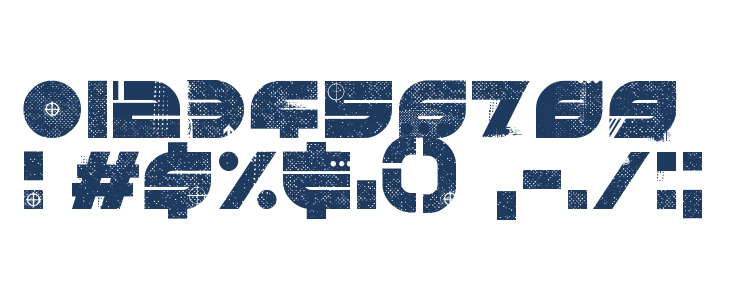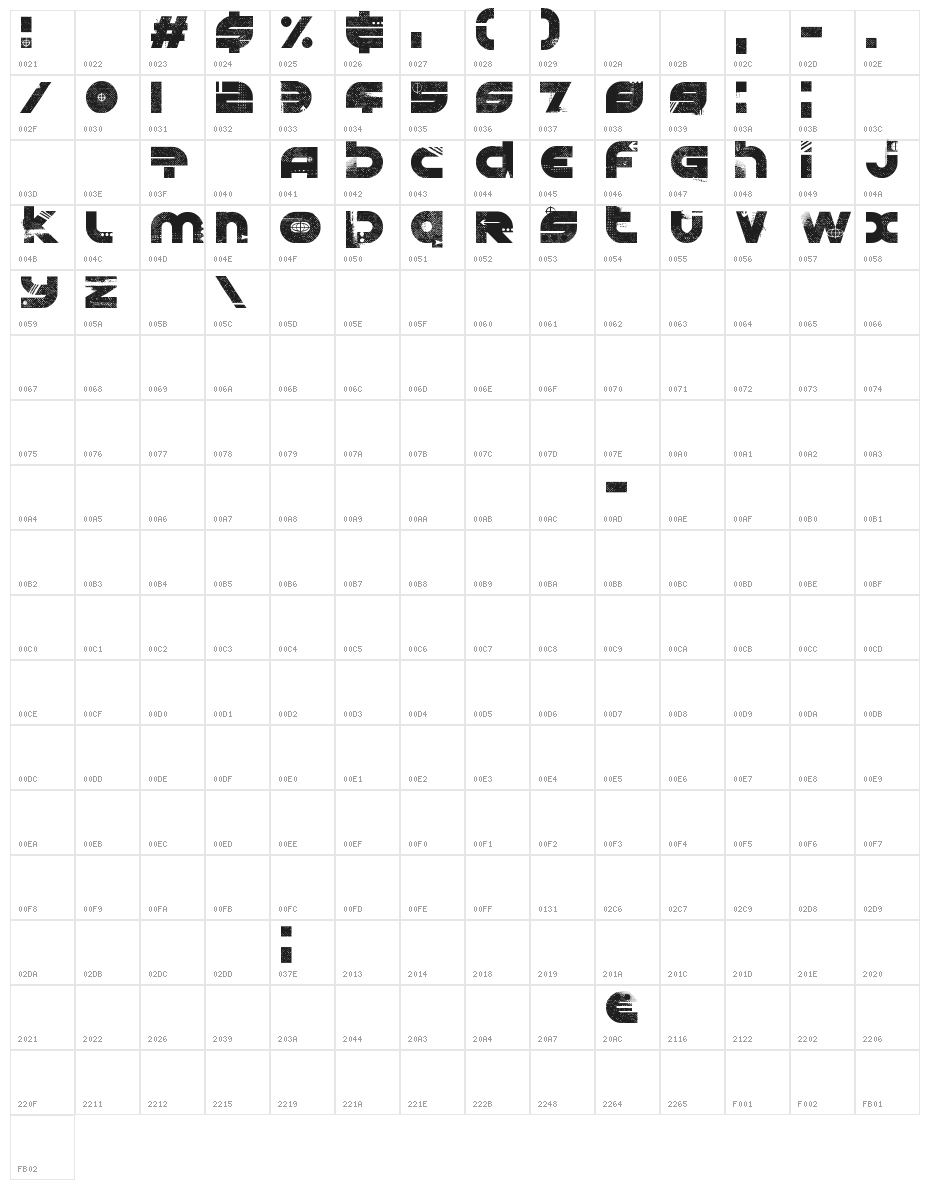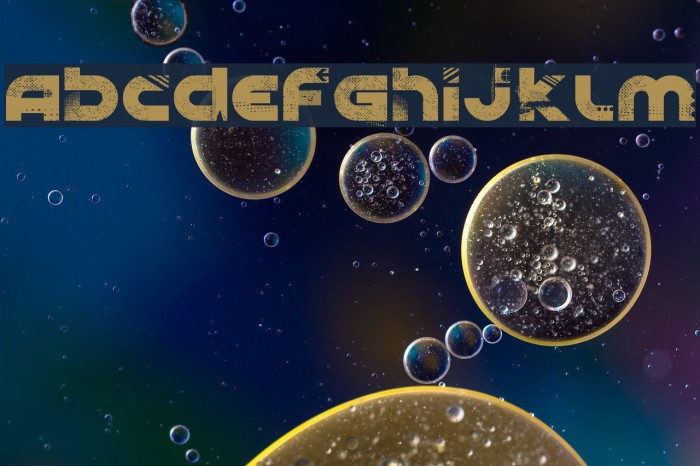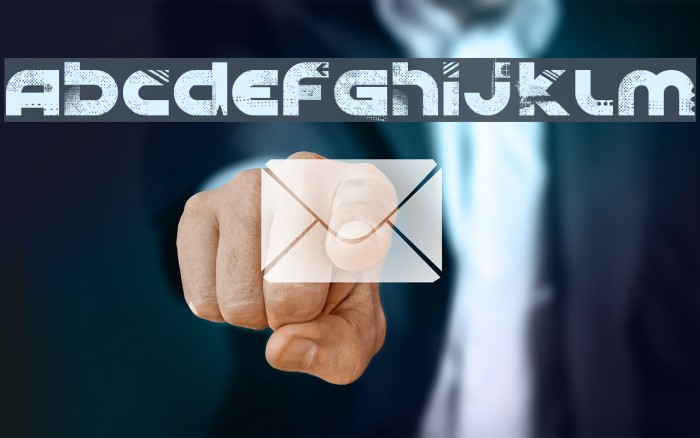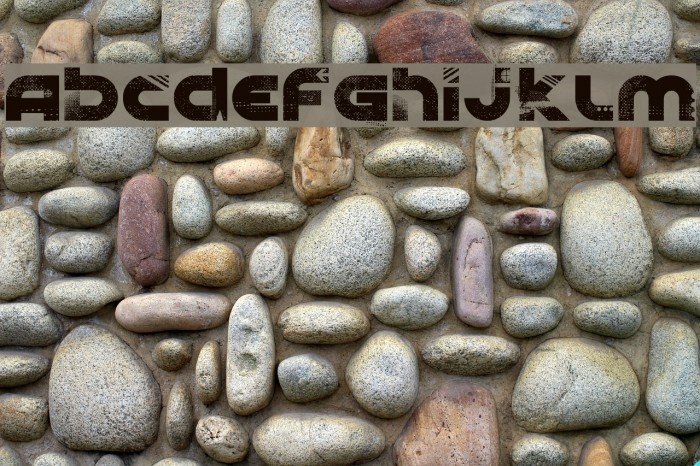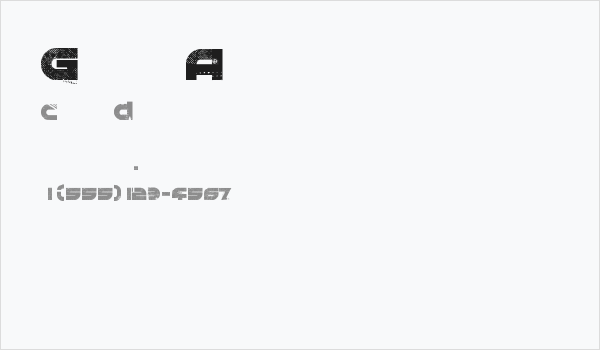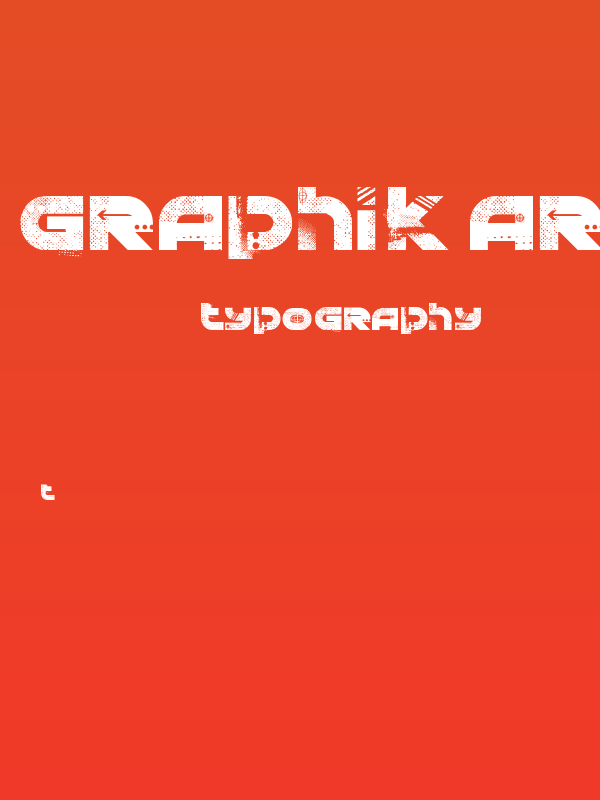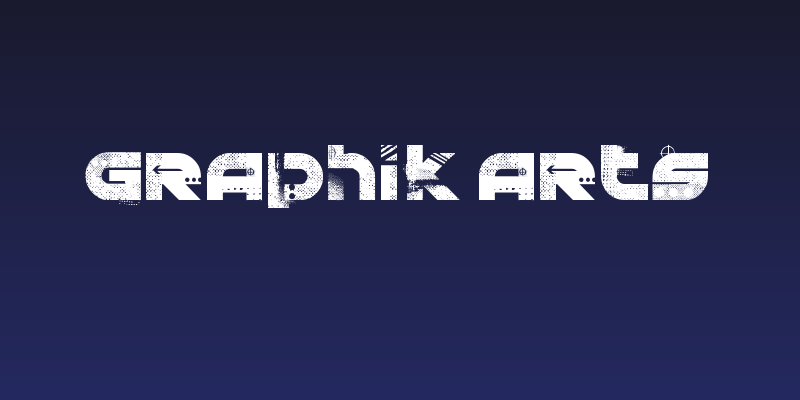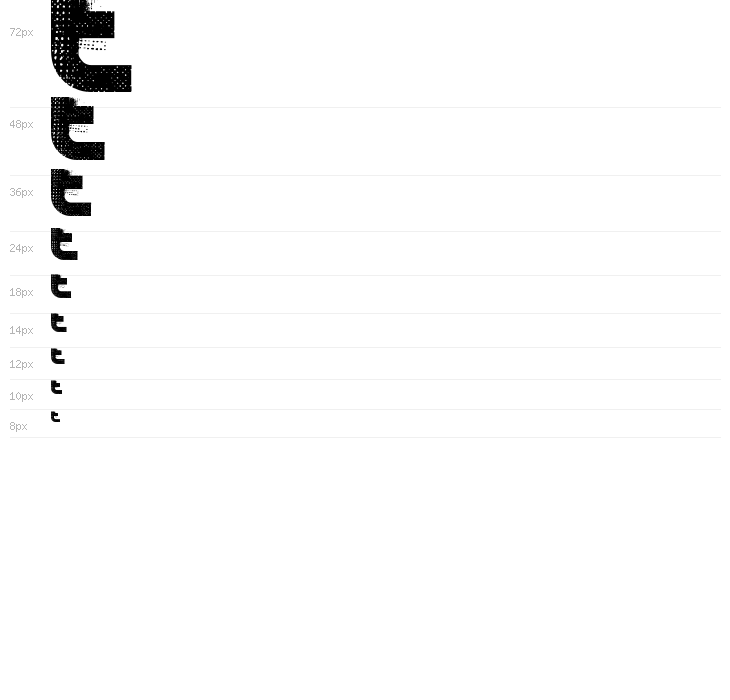
Graphik Arts Font
Graphik Arts Description
This font features a bold and artistic design, characterized by its unique integration of geometric patterns and distressed textures within each character. The letters are constructed with a modern, industrial aesthetic, incorporating elements that resemble technical drawings or blueprints. This gives the font a distinct, gritty appearance, making it stand out in creative and unconventional applications. The uppercase and lowercase letters maintain a consistent style, with rounded edges and a uniform thickness that adds to the cohesive look. Numbers and special characters follow the same design principles, ensuring a harmonious visual experience across all text elements.
| Overall Style | Modern, Industrial |
| Use Case | Logos, Headlines, Posters |
| Proposed Projects | Ideal for use in graphic design projects, posters, album covers, and branding that requires a modern, edgy look. |